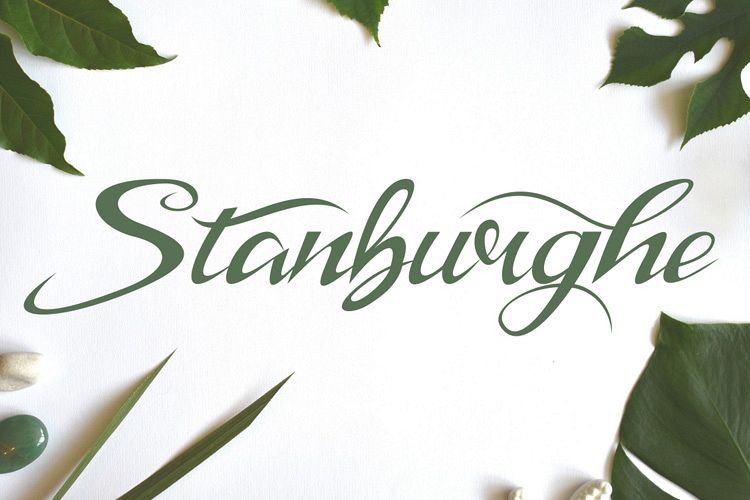
Stanburghe Script Font
I am very pleased to introduce a new stylish modern script font, a modern script font with a calligraphy style.
Introducing Stanburghe Font! it’s designed and shared by Dieza Design.
It’s really great font for logo, blog/web headline, clothing, invitation, poster, cafe/resto sign, and many others.